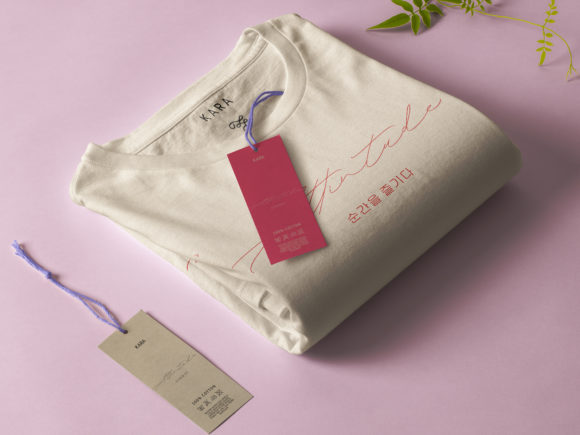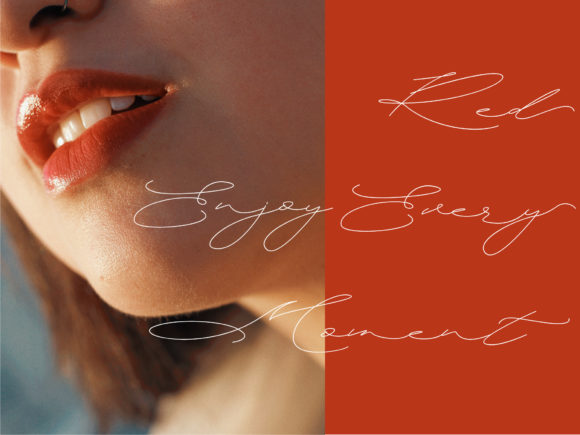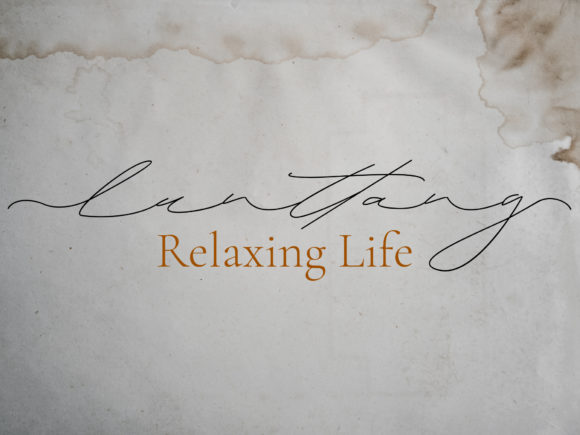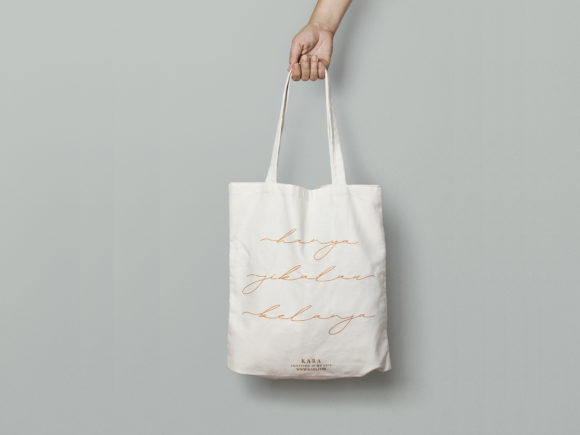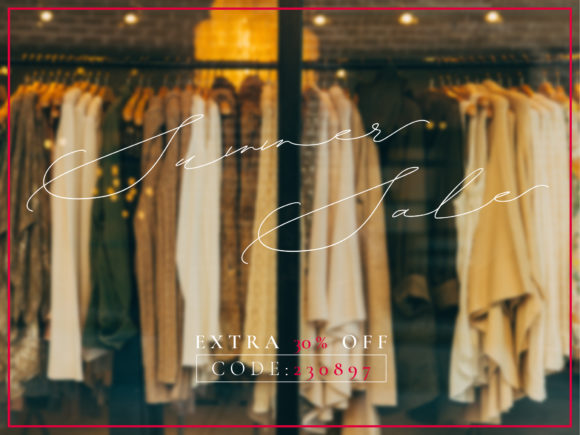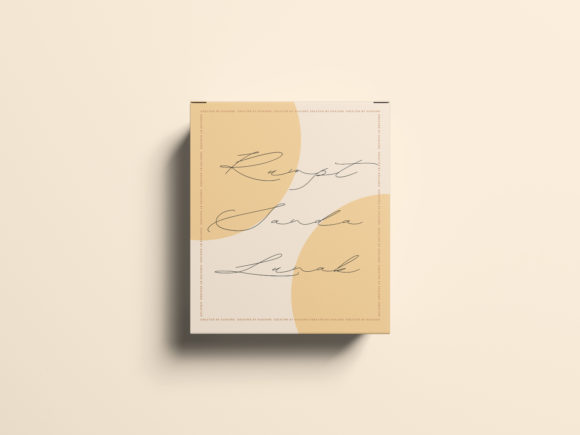
The Auro Rumpthut Font: Elevate Your Designs with a Modern Script
I’ll never forget the time I was working on a branding project for a trendy new cafe. I had the logo concept nailed, but the font just wasn’t cooperating. It was either too bland, too ornate, or just plain wrong. That’s when I stumbled upon the Auro Rumpthut font. It was like a breath of fresh air – modern, elegant, and effortlessly cool. In this article, I’ll share my love for this font, its features, and how to make the most of it in your designs.
• Unique and distinctive look: Auro Rumpthut has a certain je ne sais quoi that sets it apart from other script fonts.
• Ease of use: This font is a breeze to work with, even for those who aren’t font experts.
• 💡 Versatility: From elegant headings to stylish body text, Auro Rumpthut adapts seamlessly.
While Auro Rumpthut is an amazing font, it’s not perfect. Here are a few things to keep in mind:
• ⚠️ Legibility at small sizes: Like many script fonts, Auro Rumpthut can get a bit fuzzy at very small sizes. Use it at 18px or above for best results.
• 🤔 Limited suitability for body text: While it’s possible to use Auro Rumpthut for body text, it’s really optimized for headings and titles.
Auro Rumpthut comes with some amazing OpenType features, including:
• Stylistic alternates: Switch between different letterforms for added variety.
• Swashes: Add a touch of elegance with swash characters.
• Ligatures: Replace common letter combinations with beautiful ligatures.
A Brief Backstory: The Inspiration Behind Auro Rumpthut
While the true story behind Auro Rumpthut remains a mystery, it’s easy to imagine that it was created by a team of designers who wanted to craft a font that would make modern designs pop. Perhaps they drew inspiration from the world of fashion, art, or architecture. Whatever the motivation, the result is a font that’s both stylish and versatile.
Q: Is Auro Rumpthut suitable for body text?
A: While it’s possible to use Auro Rumpthut for body text, it’s really optimized for headings and titles. For longer blocks of text, consider a more traditional font.
Q: Is Auro Rumpthut a difficult font to learn?
A: Not at all! Auro Rumpthut is designed to be easy to use, even for those who are new to typography.